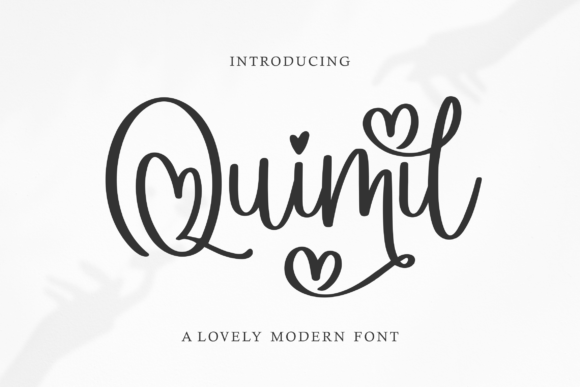
Prepare yourself to be spellbound by Quimil Font, a mesmerizing script font that will ignite your creativity and transport you to a world of visual delight. This exceptional creation by allouse.studio is not merely a font; it's an artistic masterpiece that will elevate your designs to unprecedented heights.
With its captivating and graceful strokes, Quimil Font is the epitome of elegance. Each letter dances across the page, exuding a sense of effortless beauty that will leave you breathless. Whether you're a seasoned designer or just starting, this font is your gateway to creating designs that are both captivating and unforgettable.
Quimil Font's versatility knows no bounds. It seamlessly adapts to a wide range of design projects, from eye-catching logos and branding materials to stunning invitations and social media graphics. Its ability to effortlessly elevate any project is truly remarkable.
But what truly sets Quimil Font apart is its PUA encoding. This ingenious feature allows you to effortlessly access all of the font's glyphs and swashes, opening up a world of creative possibilities. Experiment with different combinations to create unique and captivating designs that will leave a lasting impression.